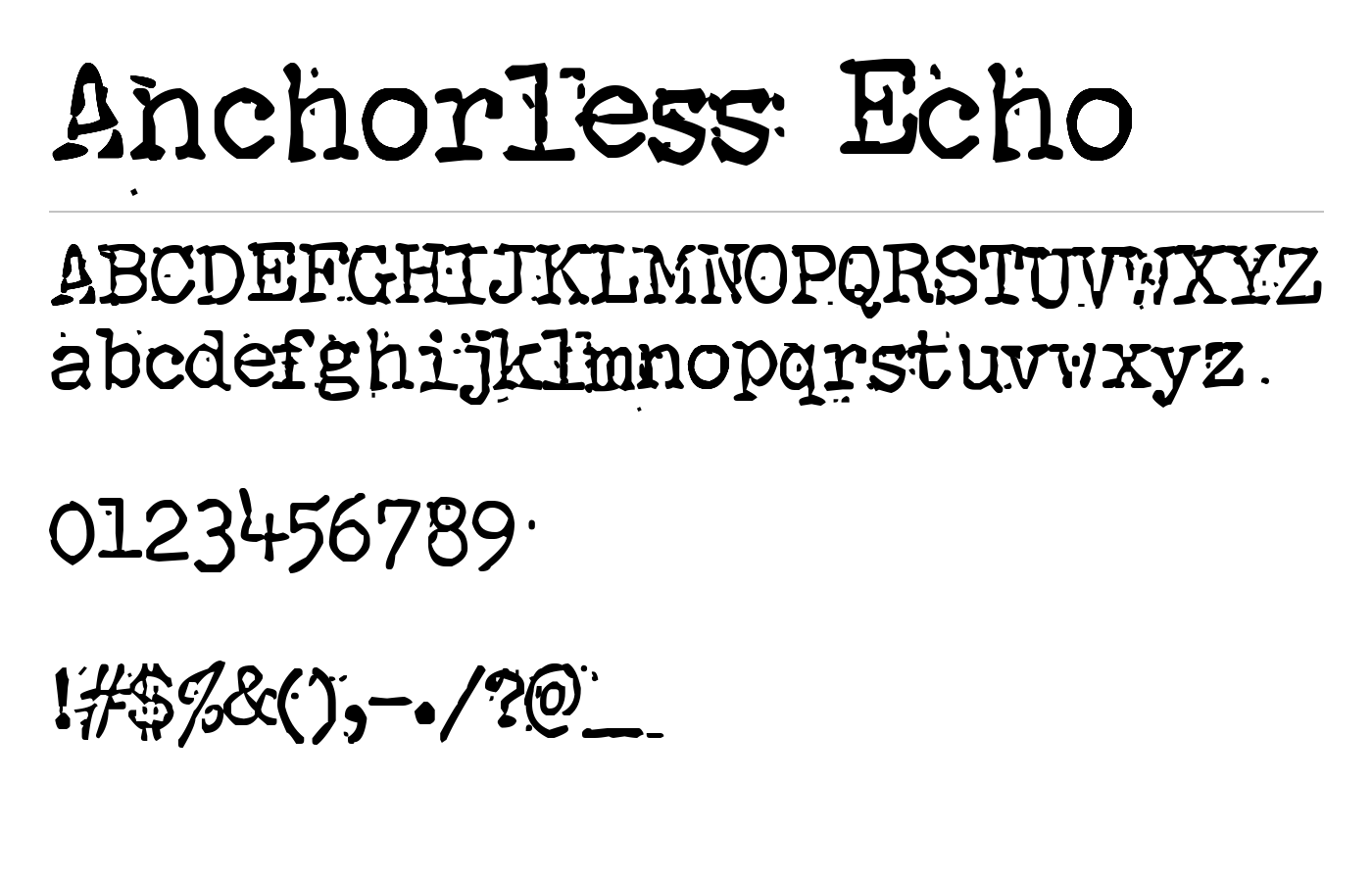
Anchorless Echo is a distressed slab serif font with a vintage typewriter feel, featuring irregular edges and a rough, echo-like texture that adds character and a sense of imperfection. Its bold weight, normal width, and high contrast between thick and thin strokes give it a strong presence while maintaining readability. This font works well for designs that want to convey an edgy, retro, or gritty aesthetic, making it ideal for posters, logos, or editorial pieces that seek a unique, handcrafted look.
Anchorless Echo Font